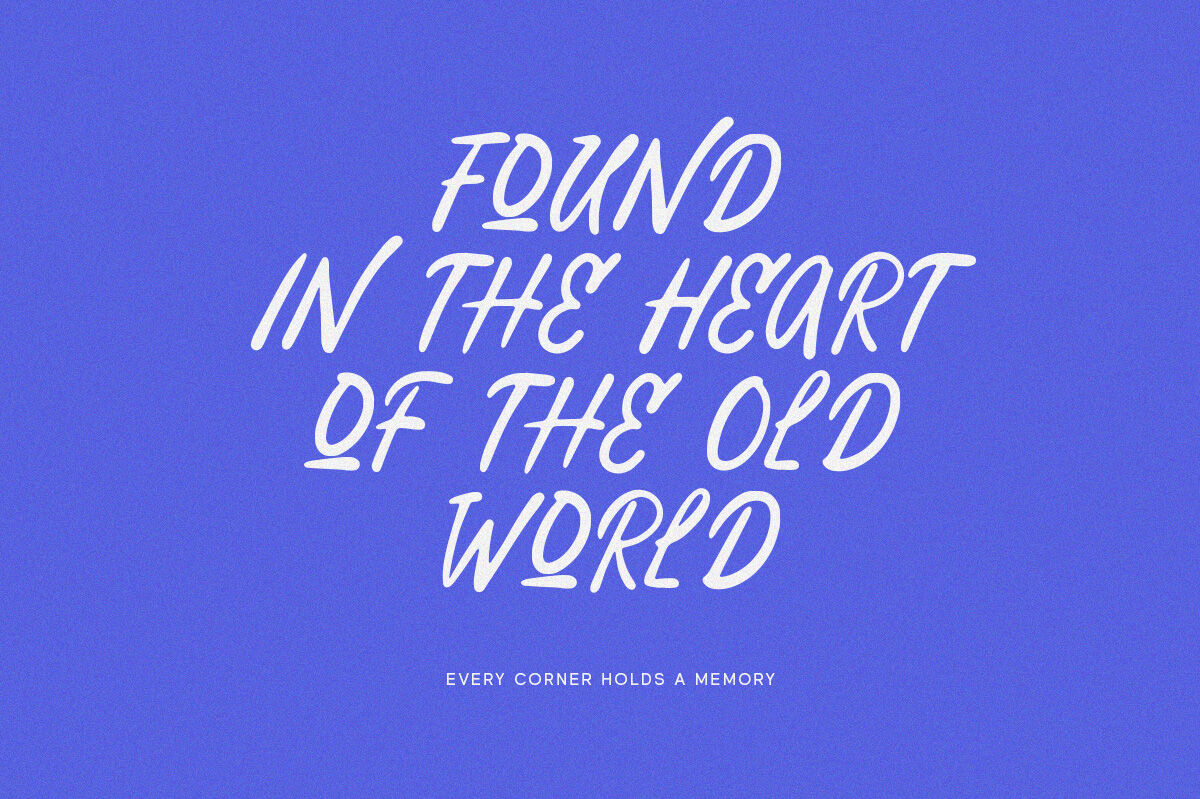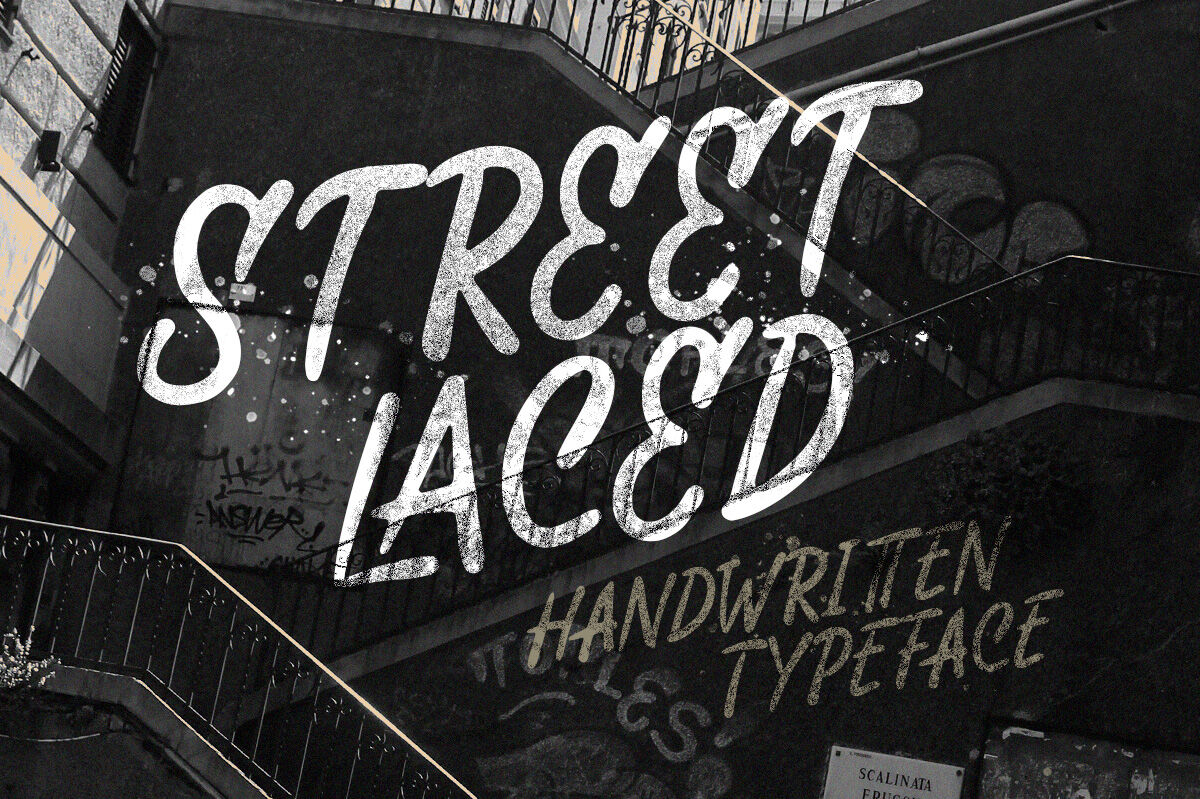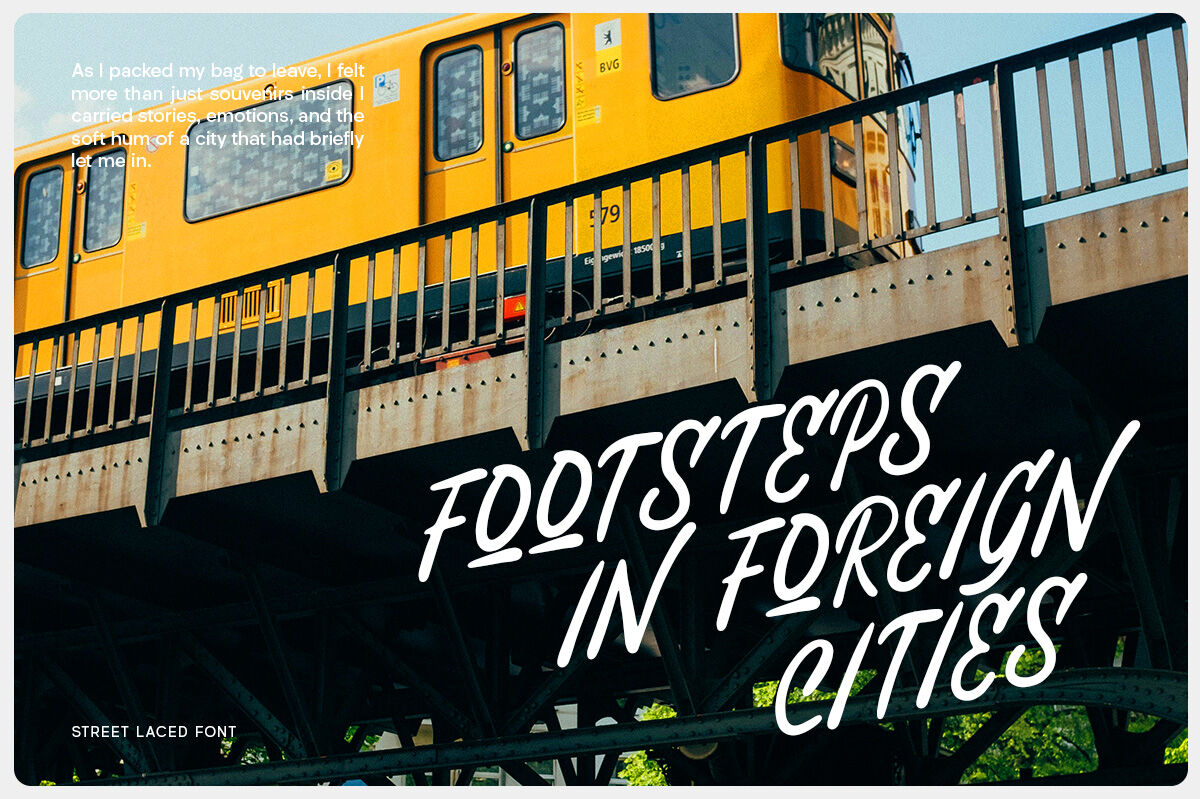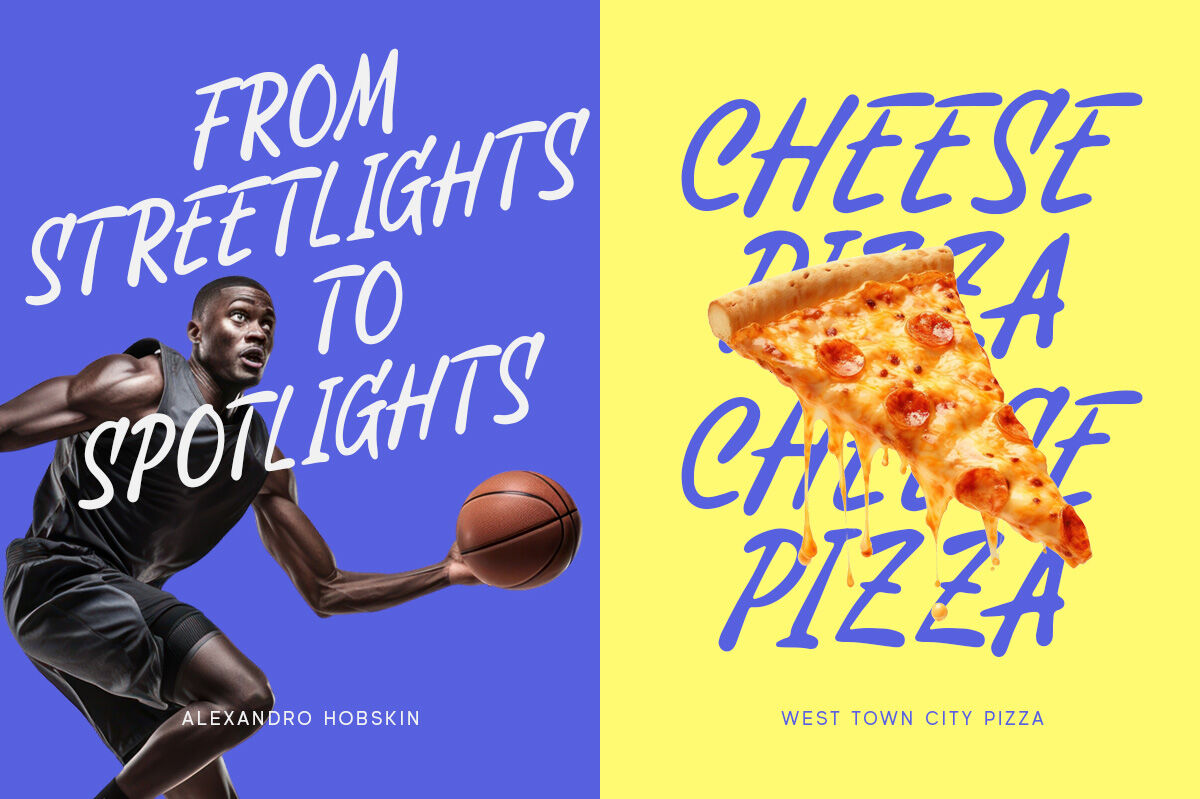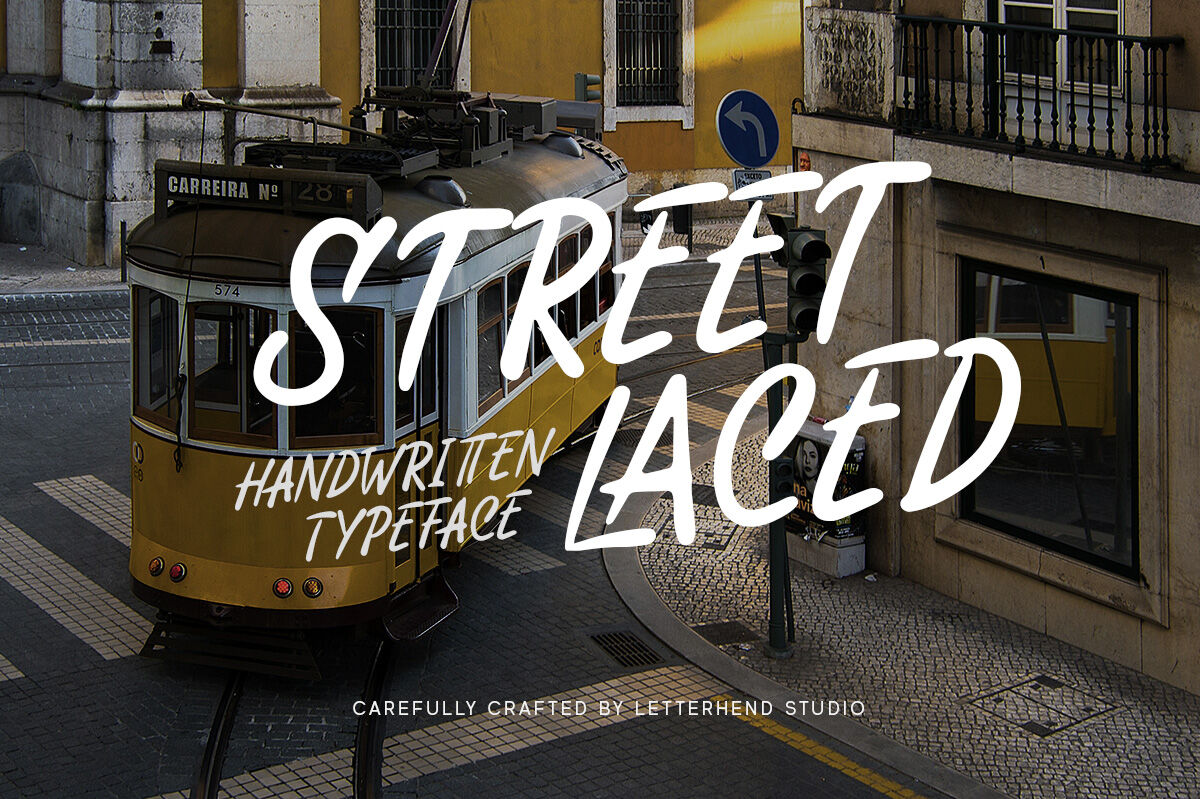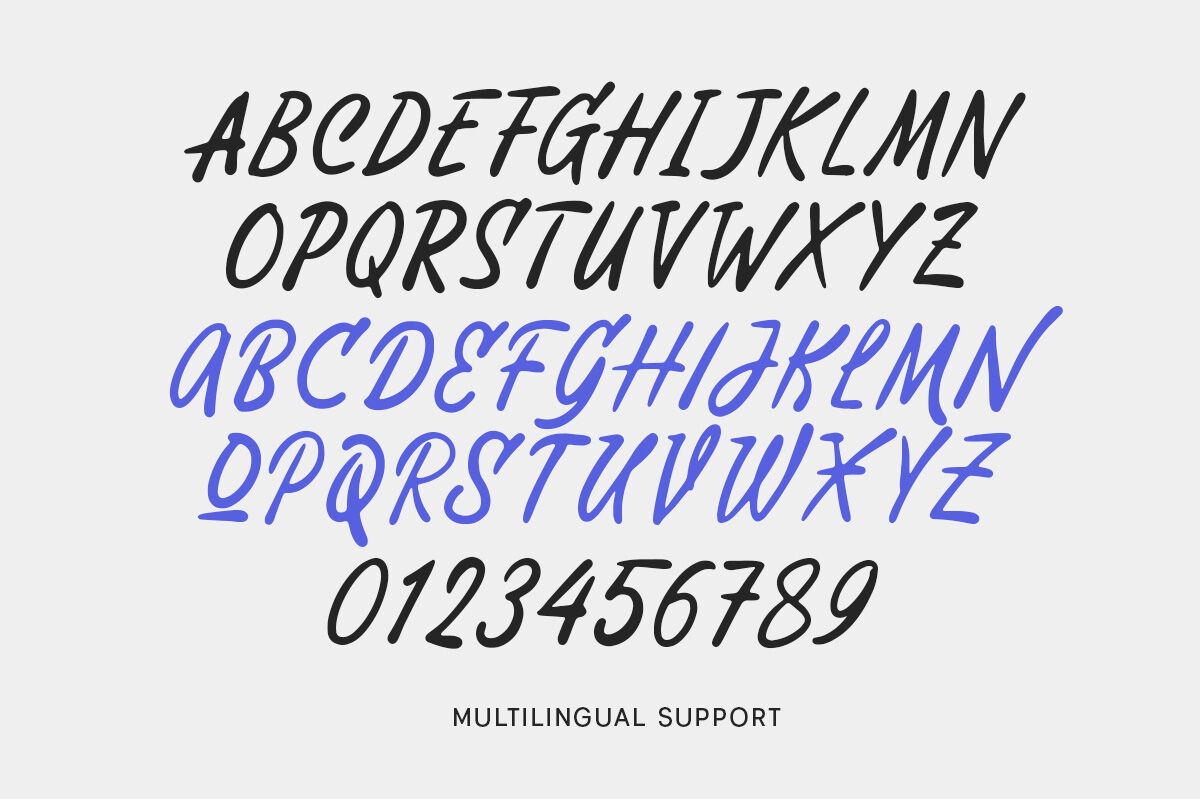
Street Laced is a dynamic handwritten typeface crafted by Letterhend Studio, designed to bring an energetic and authentic urban feel to your designs. Its fluid strokes and slightly slanted, brush-pen style lettering mimic real handwriting, making it perfect for projects that require a personal, expressive, or street-inspired touch. The typeface balances casual elegance with raw edge, making it ideal for branding, apparel, album covers, social media graphics, or editorial titles that need a stylish, modern hand-drawn look.
Features :
Uppercase & lowercase
Numbers and punctuation
Alternates Character
Multilingual support